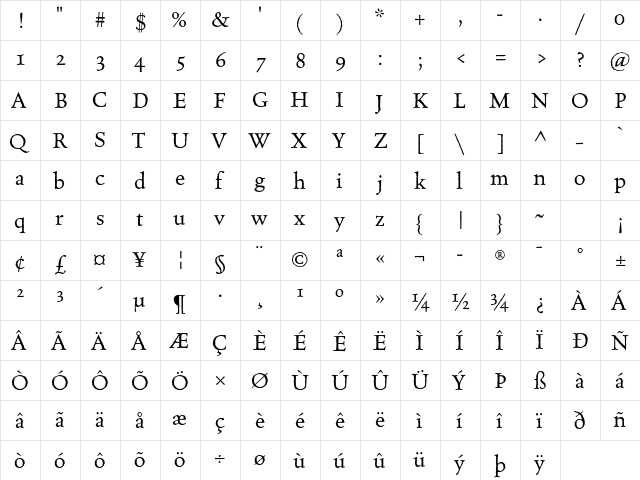
Celestia Antiqua Std Regular
| Designer | Mark van Bronkhorst |
Design Context for Celestia Antiqua Std Typeface
Celestia Antiqua Std is a composed and adaptable typeface that performs quietly and consistently across a wide range of design contexts.